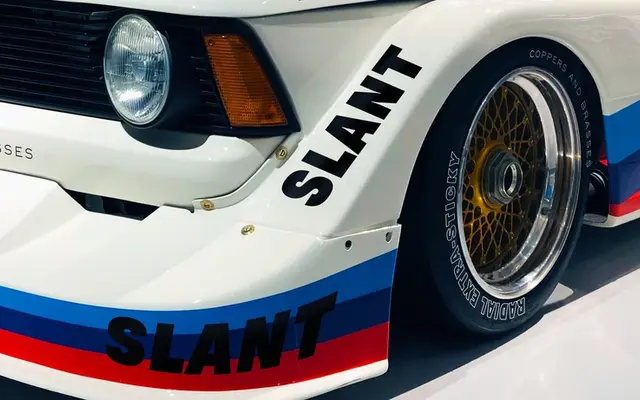
Triade
Coppers and Brasses · Étienne Aubert Bonn · 2016
A single-weight display typeface in three angle variants — upright, slanted and backslant — with oversized ink traps and a rich set of alternates.
Designed by Étienne Aubert Bonn and released in 2016, Triade is built for large-scale use and offers three stylistic angles rather than a range of weights. Enormous ink traps are a deliberate visual feature, and punctuation and diacritics come in two variants — bold and extra-thin — giving the family considerable range within its single weight. Ornamental alternates add further flexibility for display and editorial contexts.
A single-weight display typeface with large ink traps and three angle variants (upright, slanted, backslant), designed exclusively for large-scale use — firmly a display face.